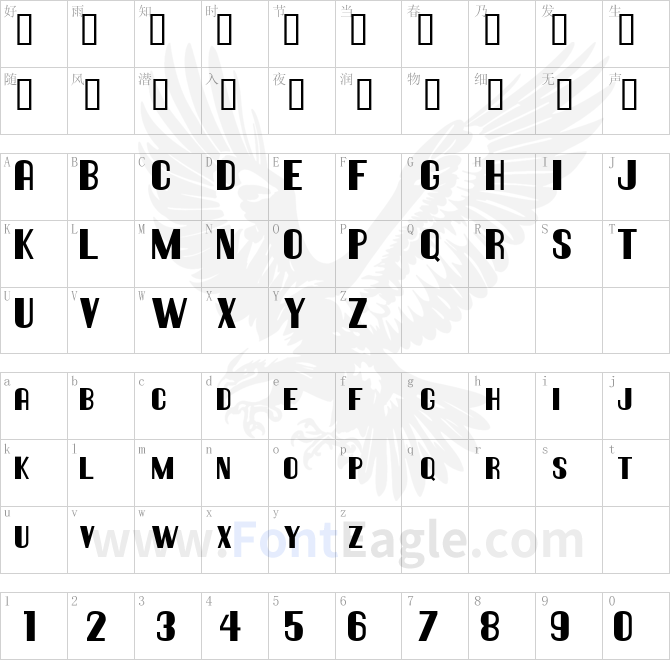
- Font name:Hallandale Deco Bold SC JL
- Font Subfamily ID:Hallandale Deco Bold SC JL
- Font Full Name:Hallandale Deco Bold SC JL
- Postscript:HallandaleDecoBoldSCJL